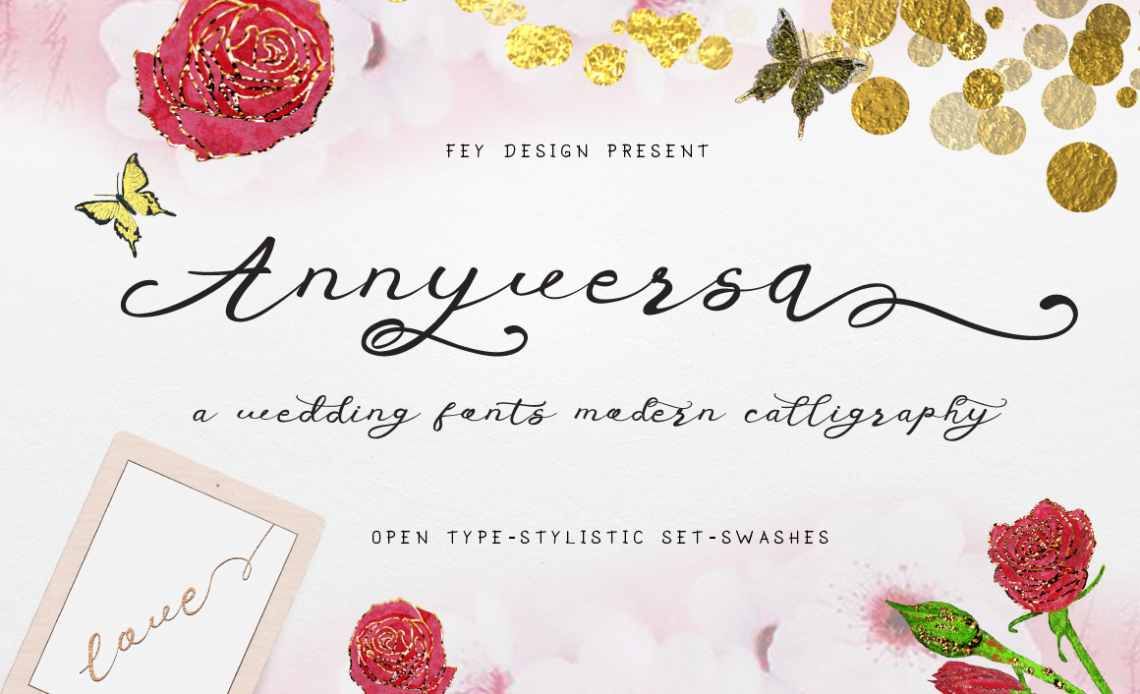
Anniversa Font
Wedding bells are ringing, and Anniversa Font is here to set the sweetest tunes on your special day. This elegant, enchanting script font will steal the show with its charming curves and timeless appeal.
Anniversa's delicate strokes evoke the romance and grace of a bygone era, making it the perfect choice for your wedding invitations, save-the-dates, and signage. Let your guests swoon over your impeccable taste as they admire the intricate details and flowing lines of this masterpiece.
Beyond its wedding-worthy wonders, Anniversa's versatility extends to any project where a touch of love and enchantment is desired. Whether you're designing a heartfelt greeting card, a whimsical poster, or a captivating brand logo, Anniversa will effortlessly elevate your creations.
Picture your words dancing across the page, adorned with the exquisite beauty of Anniversa. Its enchanting curves will capture hearts and leave a lasting impression on all who behold them.
Anniversa is the love story you've been waiting for. Embrace its undeniable charm and let your creativity bloom. Make every word a celebration and let Anniversa's enchanting script set the stage for your unforgettable moments.